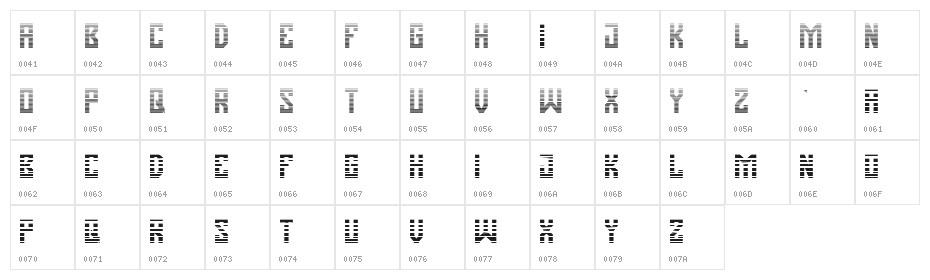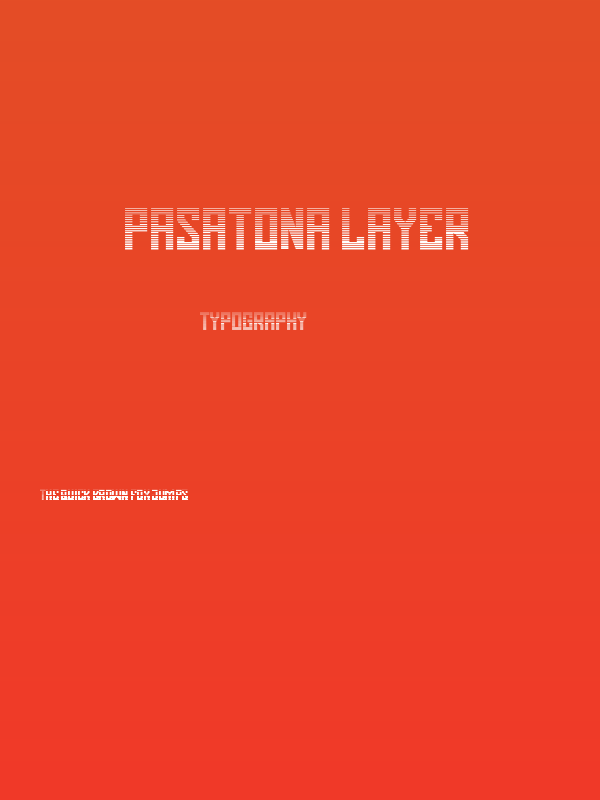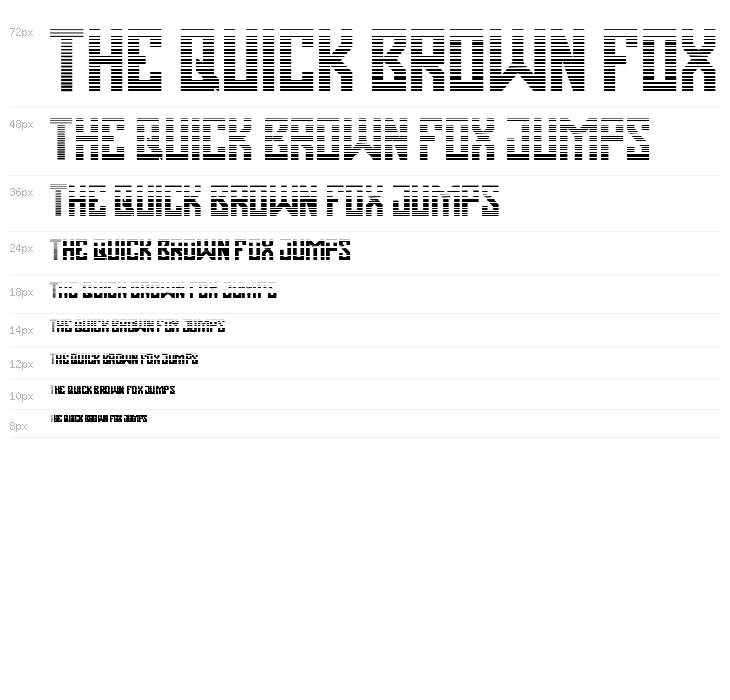
Pasatona Layer Font
Pasatona Layer Description
This font features a bold, geometric design with a layered, striped pattern that gives it a unique, three-dimensional appearance. Each character is constructed with horizontal lines that create a sense of depth and movement. The uppercase letters are uniform in height, with sharp angles and clean edges, contributing to a modern and futuristic aesthetic. The absence of lowercase letters and numbers suggests a focus on impactful, large-scale use. The font's distinct style makes it ideal for attention-grabbing headlines and display purposes.